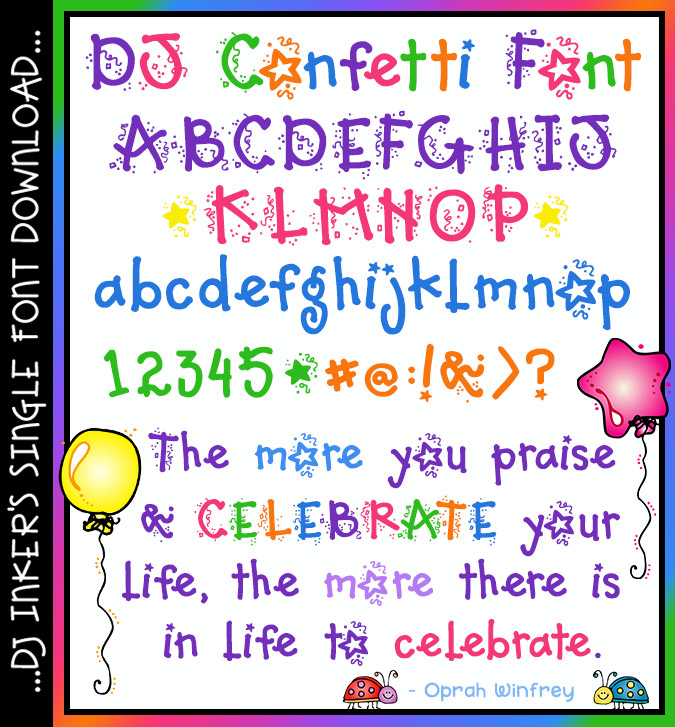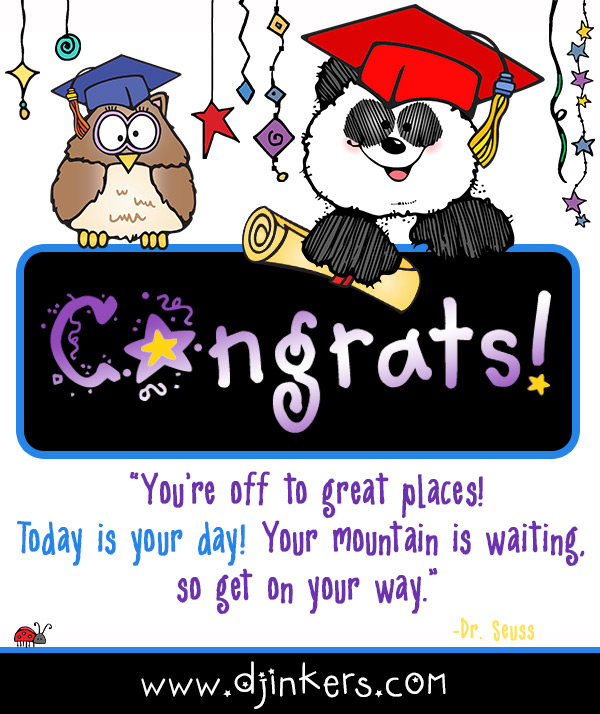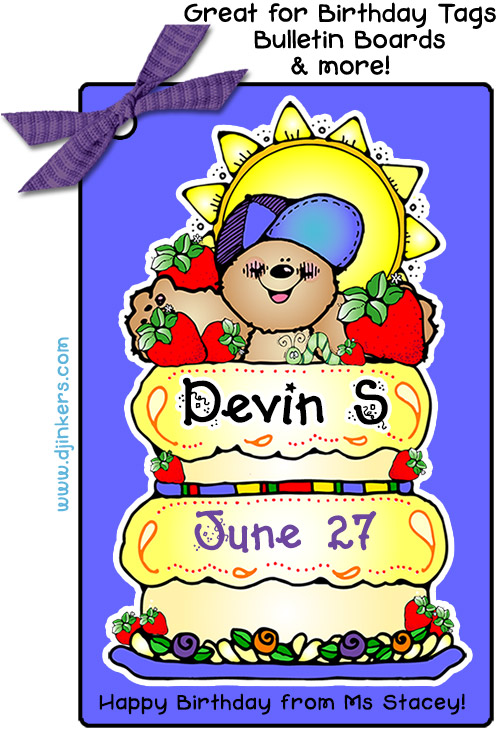
A fun confetti font for parties, birthdays and celebrations by DJ Inkers
DJ Confetti Font Download
A fun confetti font for parties, birthdays and celebrations by DJ Inkers
DJ Confetti Font Download
Getting ready to celebrate something special? Our DJ Confetti font will be the life of the party! Hooray! This lively lettering will be perfect for birthday cards, tags and bulletin boards, party invitations, decorations and favors.